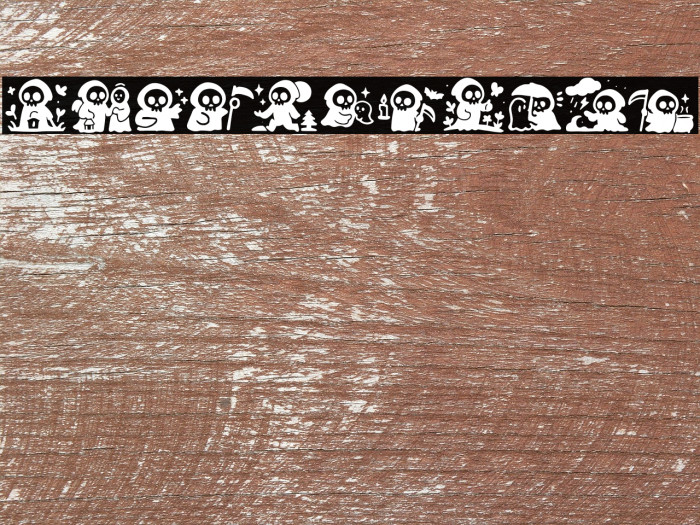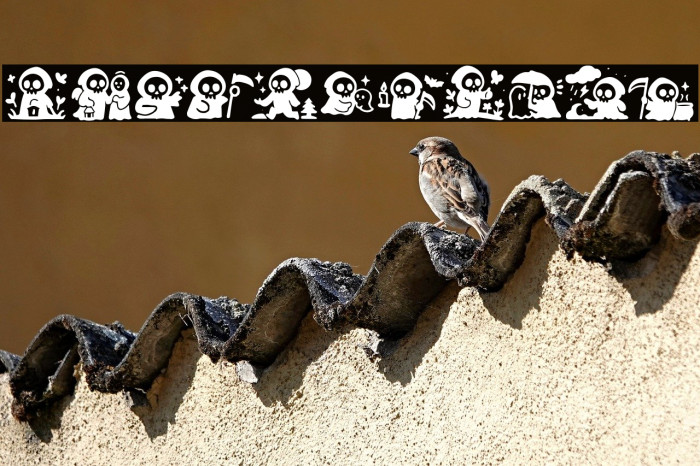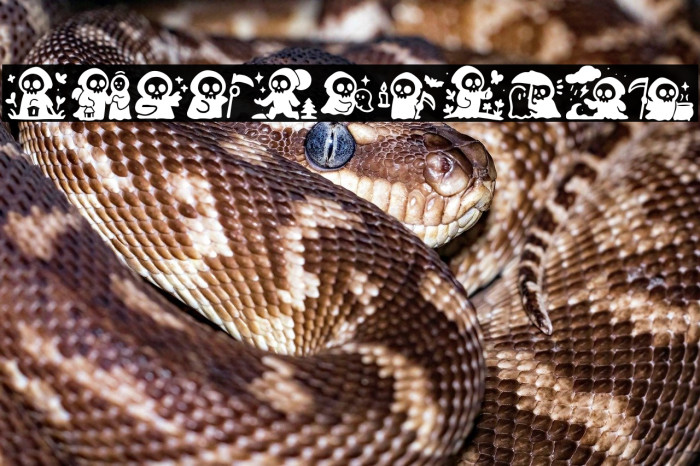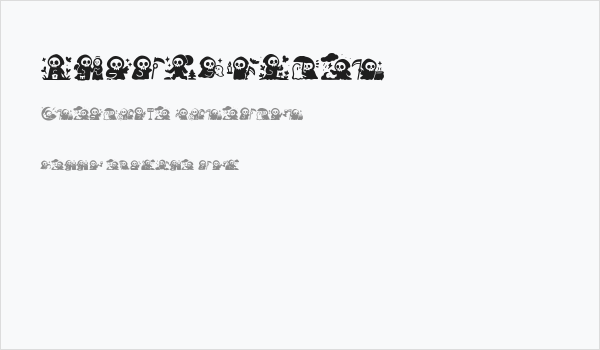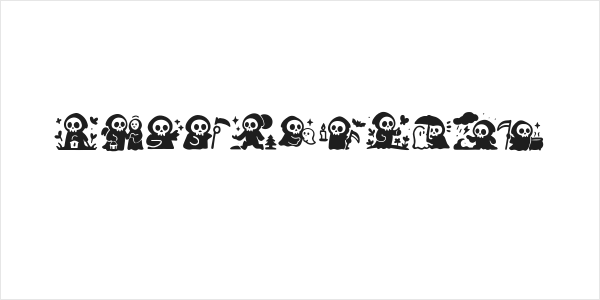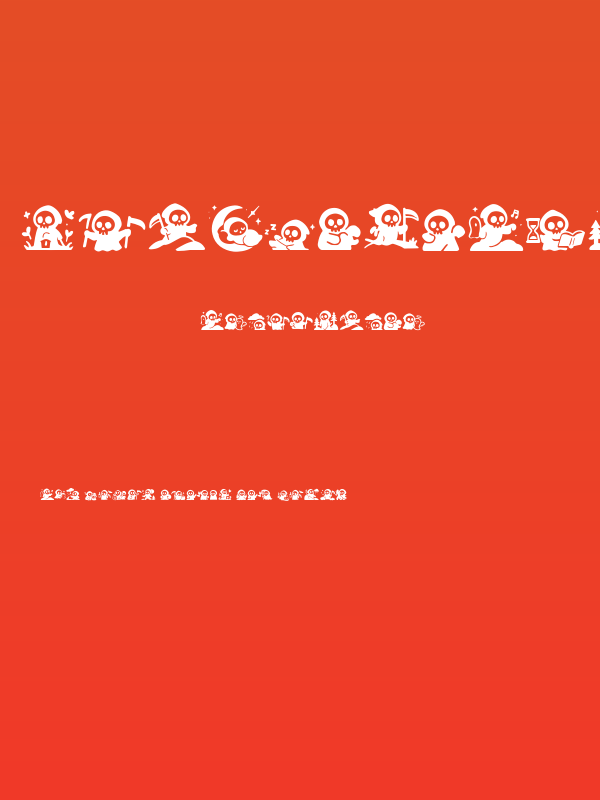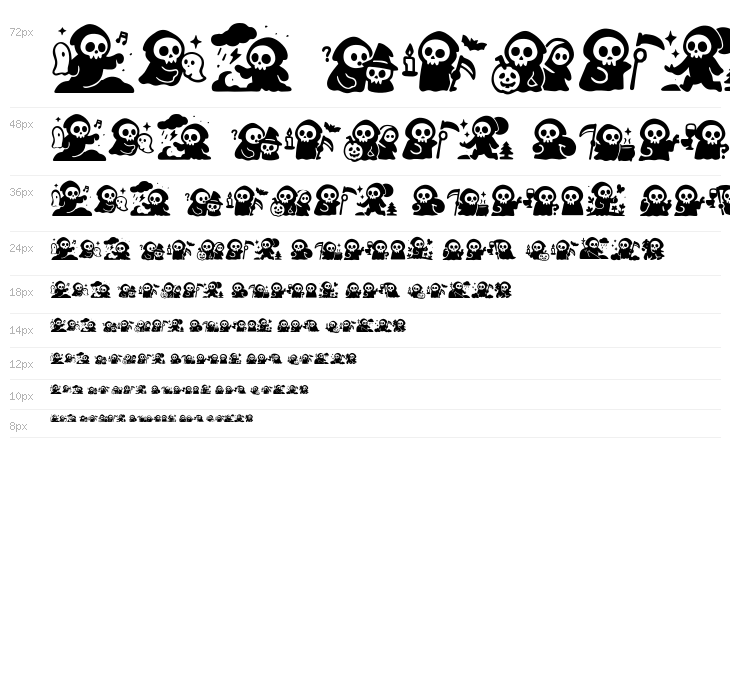
Blackhunter Font
Blackhunter Description
A playful, decorative dingbat set featuring cartoonish grim reaper characters in various whimsical poses and scenarios, rendered in bold, solid black silhouettes with expressive details.
Overall StyleDecorative, Playful, Whimsical
Use CaseIcons, Decorative elements, Themed graphics
Proposed ProjectsHalloween invitations, themed posters, stickers, social media graphics, children's book illustrations, novelty merchandise.